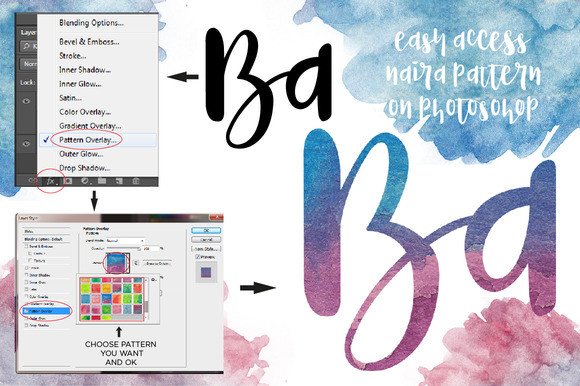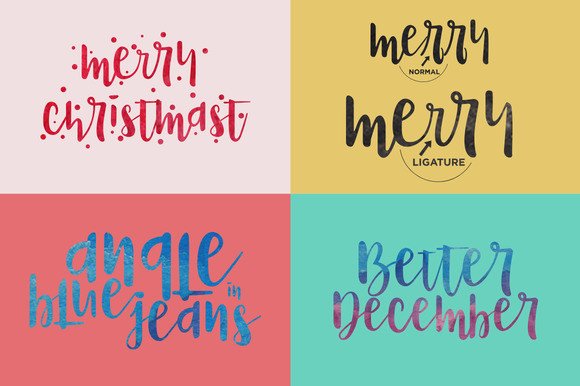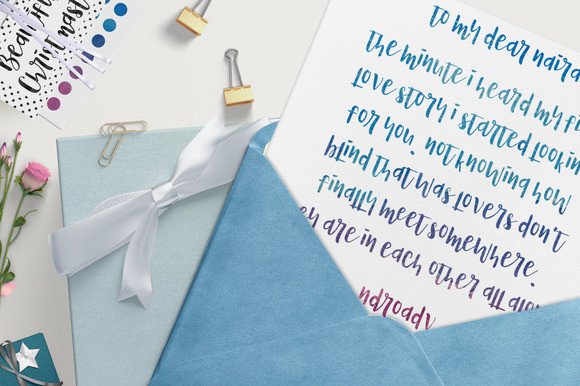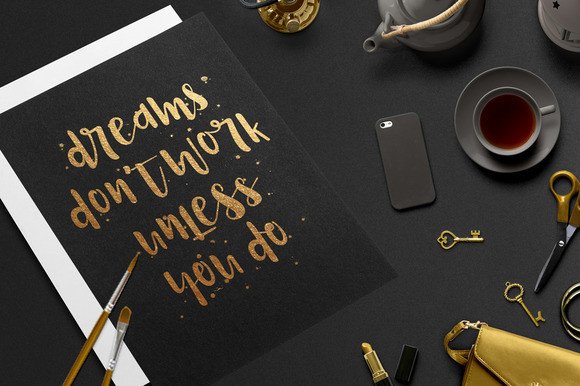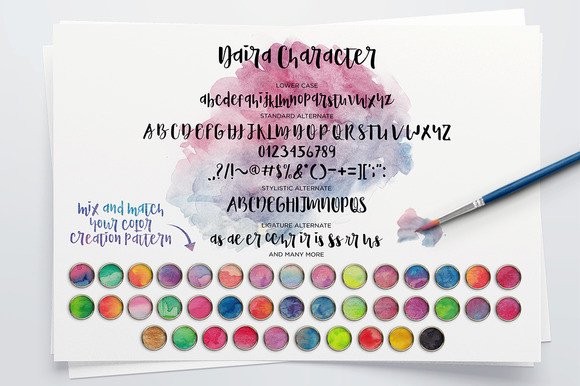
Naira Font
About Naira Font
Naira Script is a modern calligraphy script with a very funny, feminine, fresh and simple design. This font can help you to create a beautiful designs. Naira Script can be used for various purposes such as envelope designs, logos, titles, wedding invitations, letterheads, labels, newsletters, signage, posters, badges and much more!
Naira Script includes 40 Pattern Water Colors so you can mix and match with your design and help you to create an instant beautiful typeface.